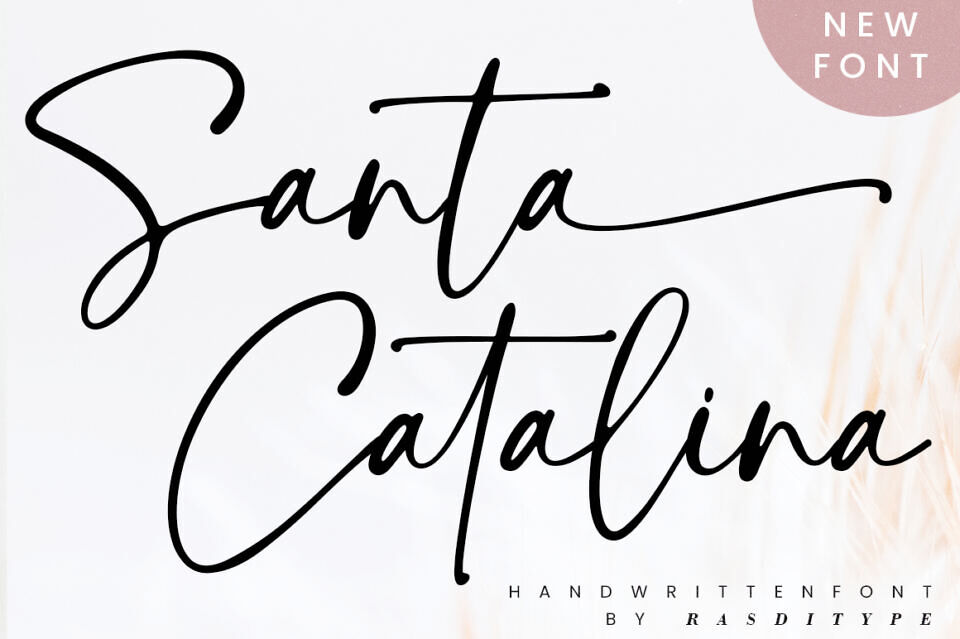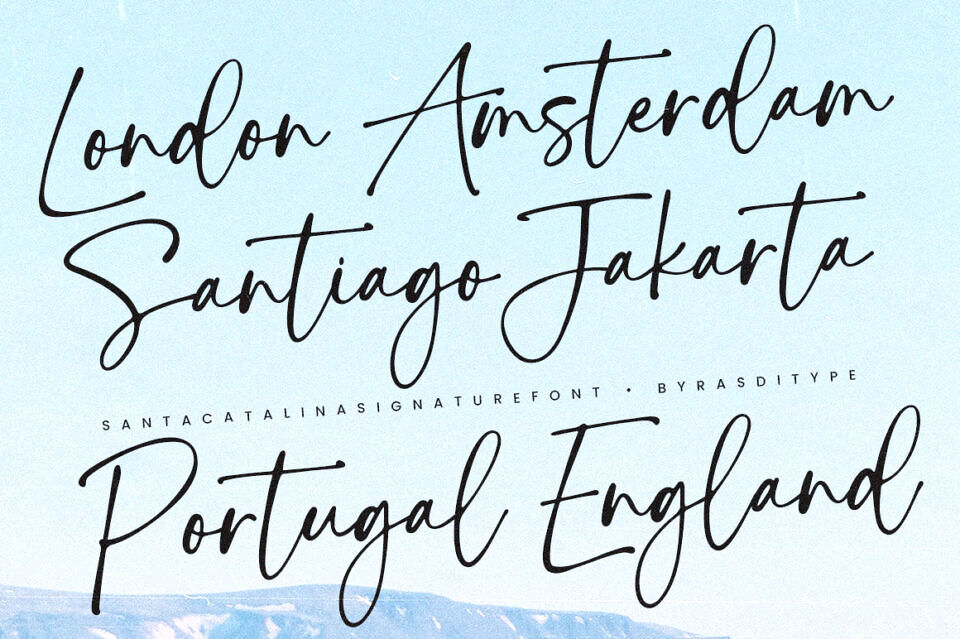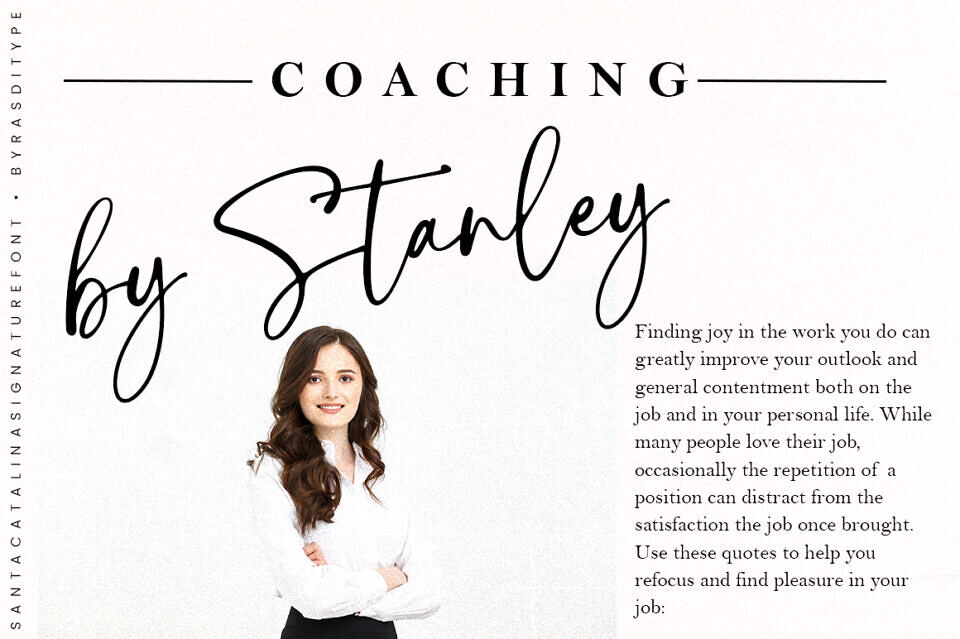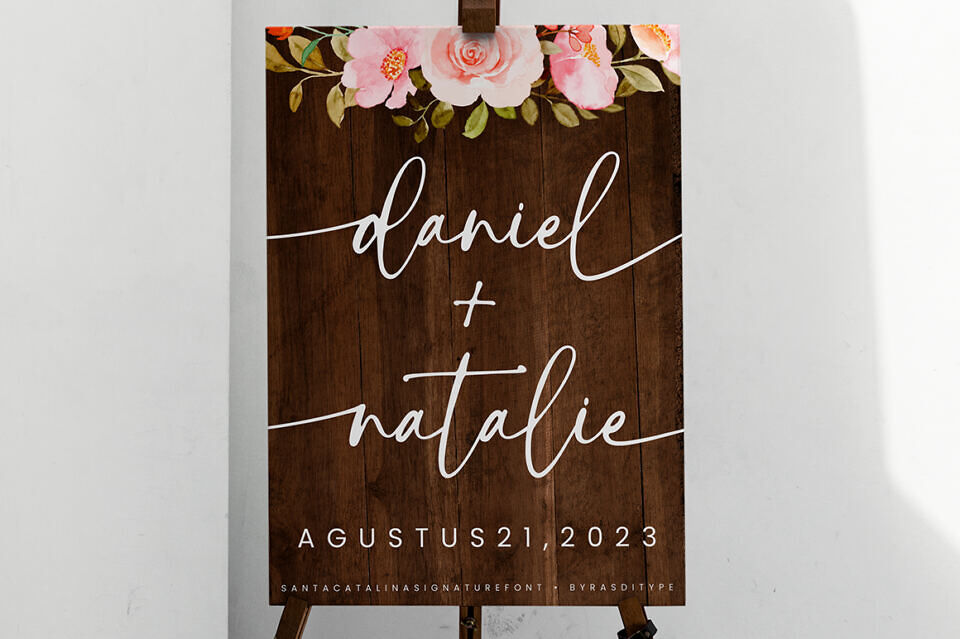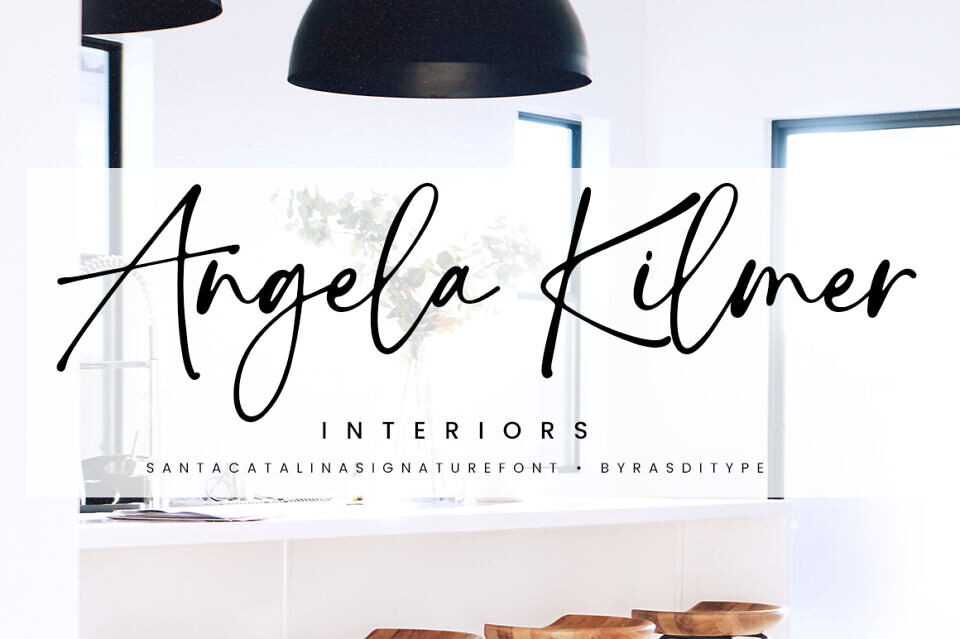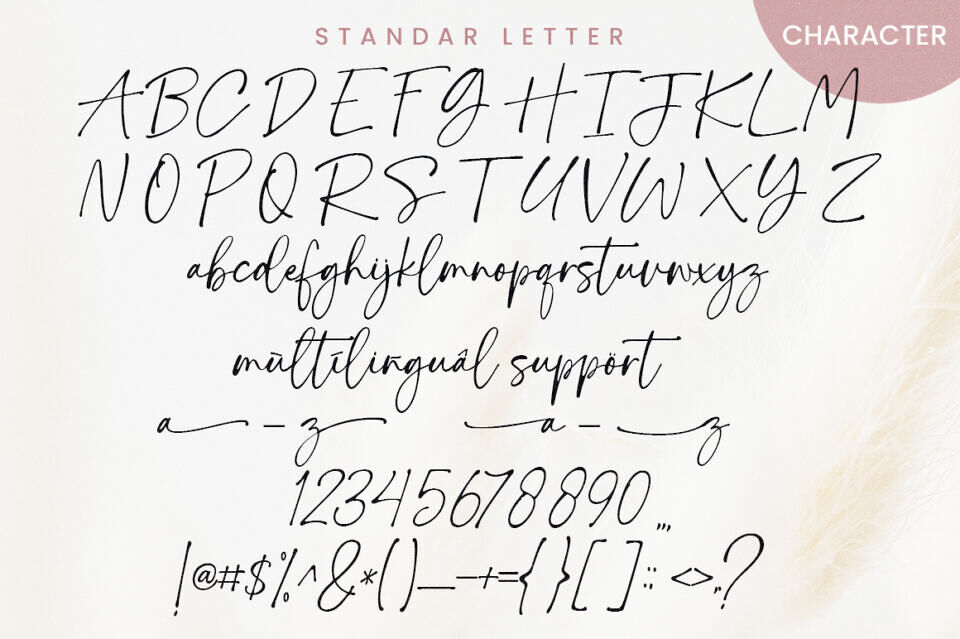
Santa Catalina is a beautiful handwritten font ideal for logos, wedding stationery, photography watermarks, modern websites, and more. Fall in love with its incredibly distinct and timeless style, and use it to create spectacular designs!